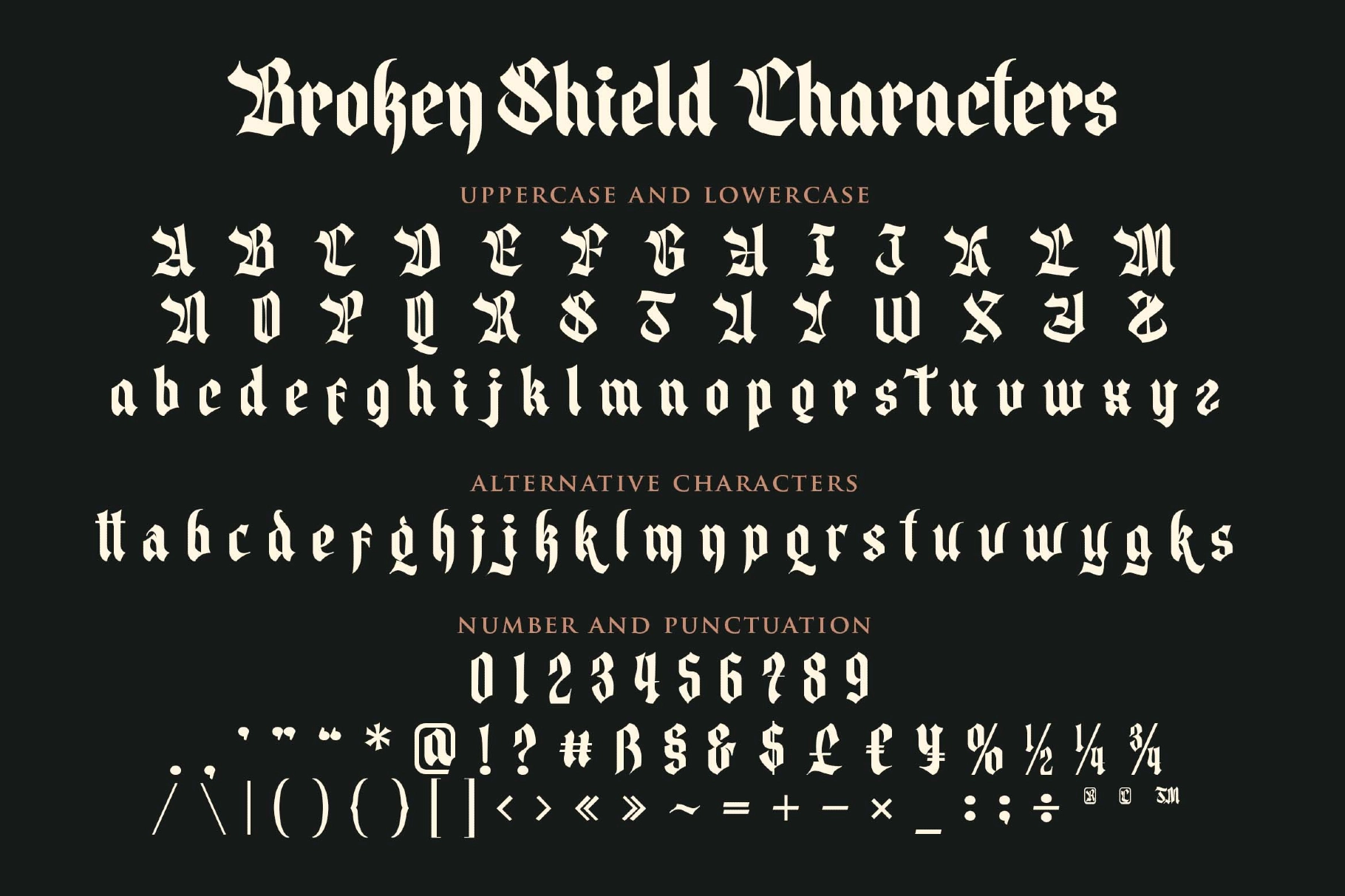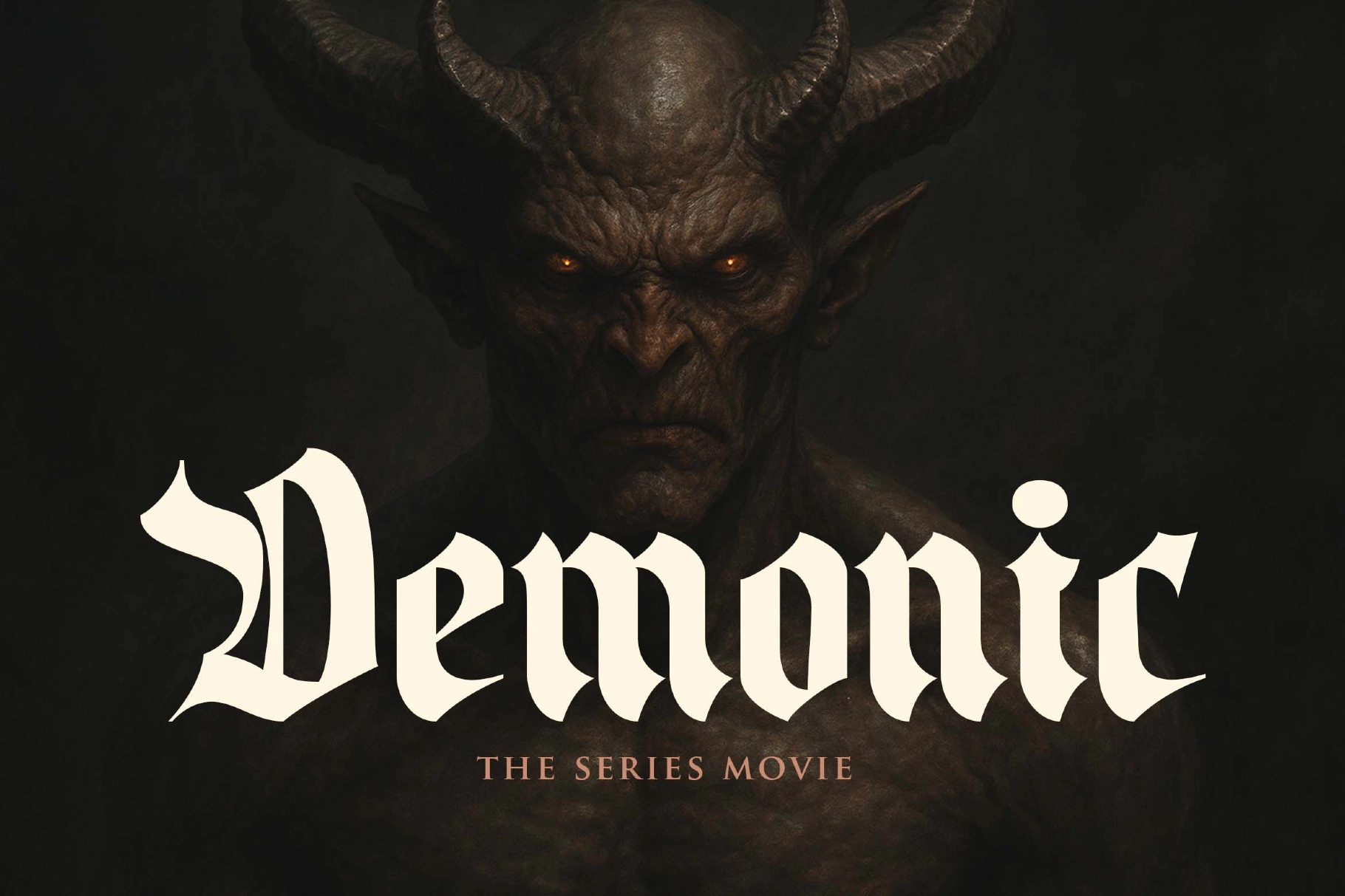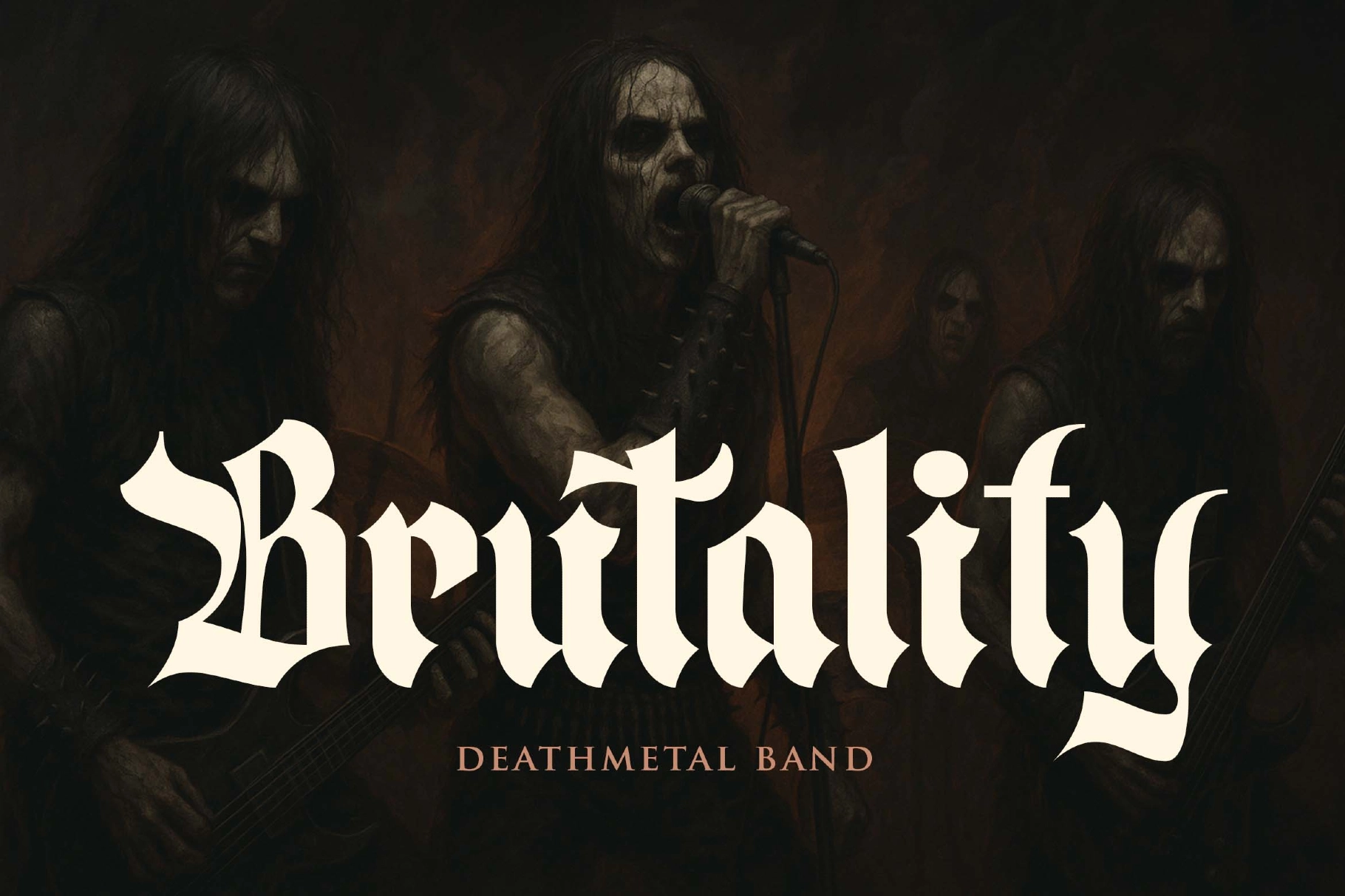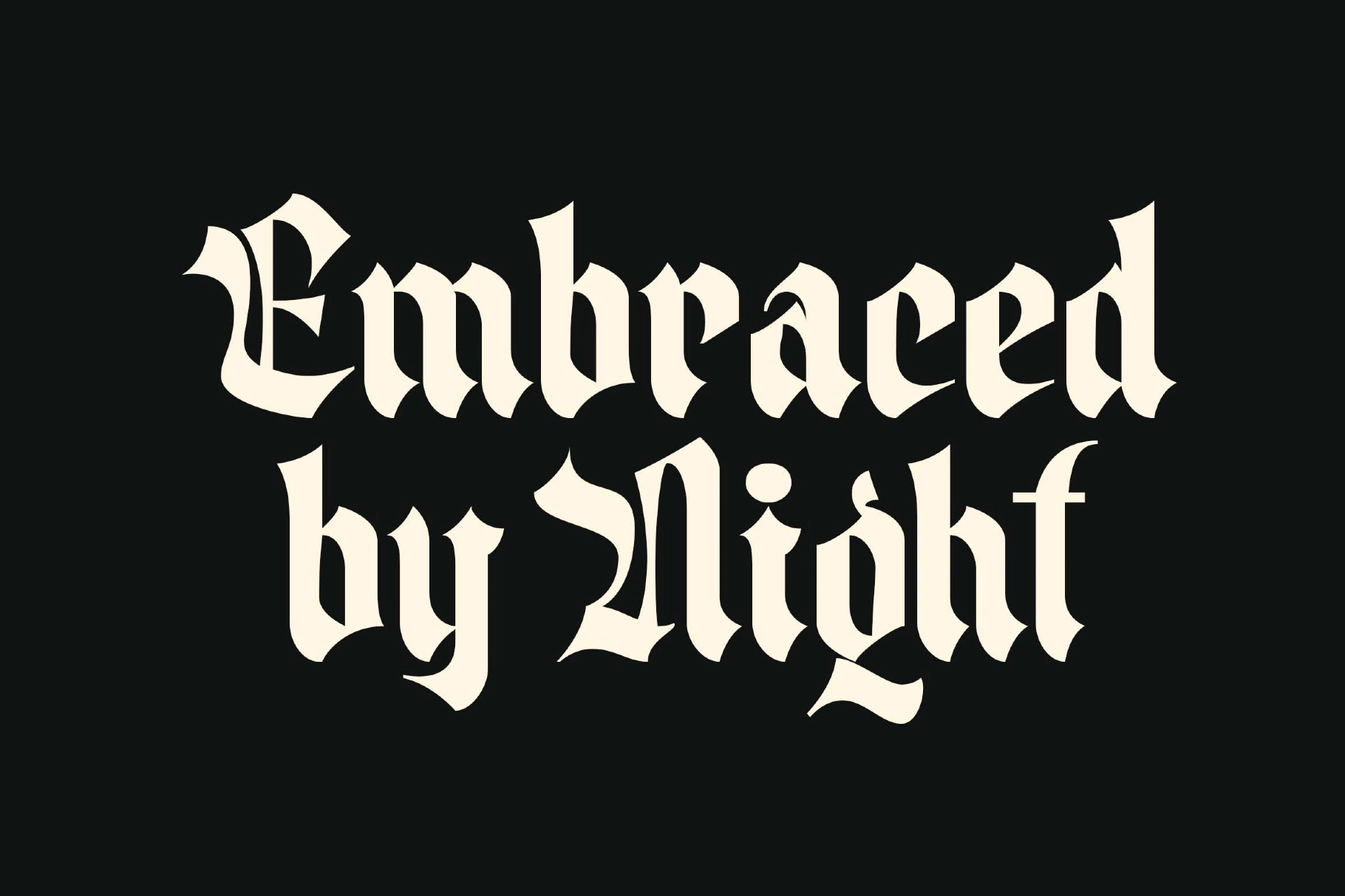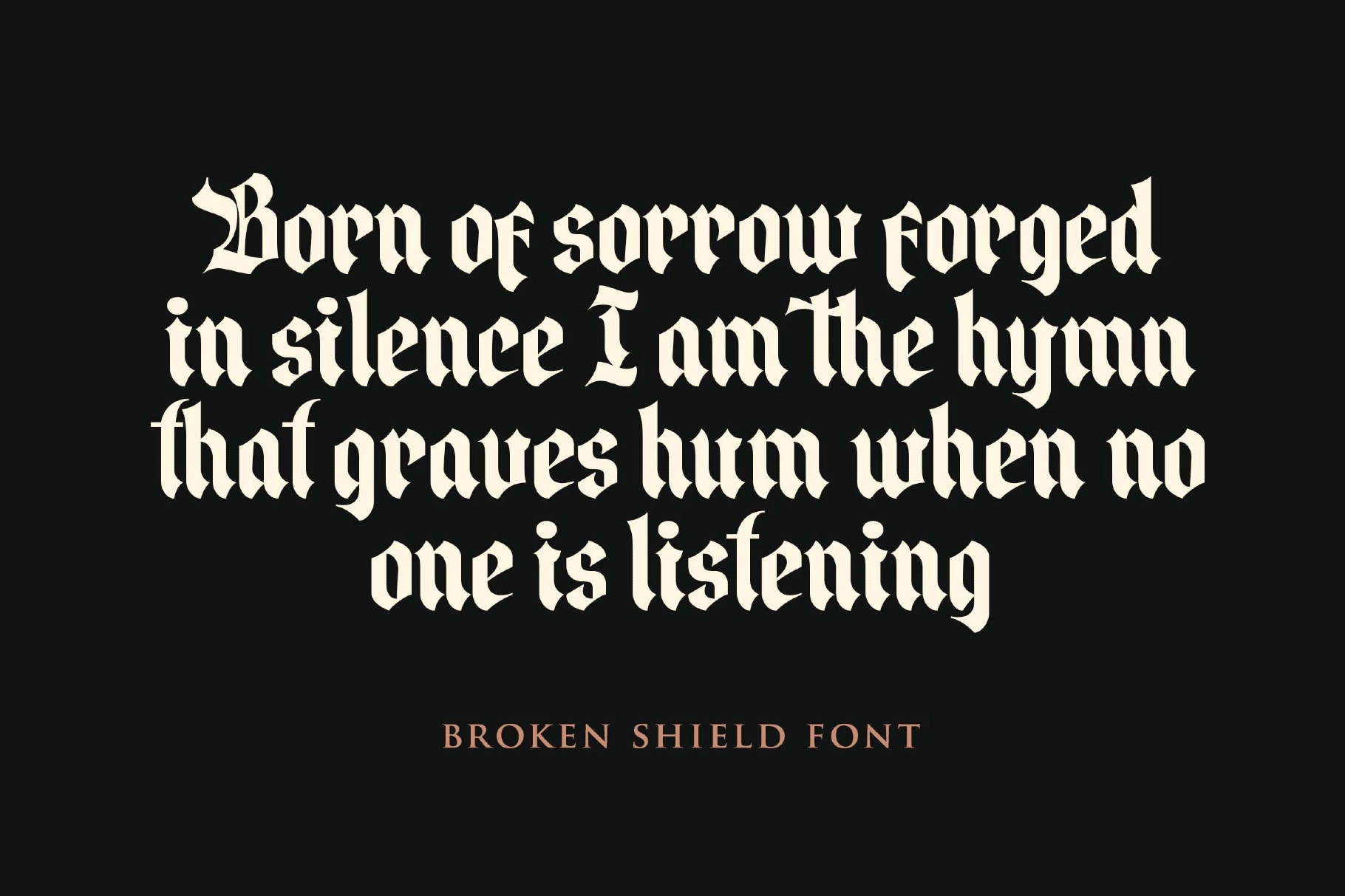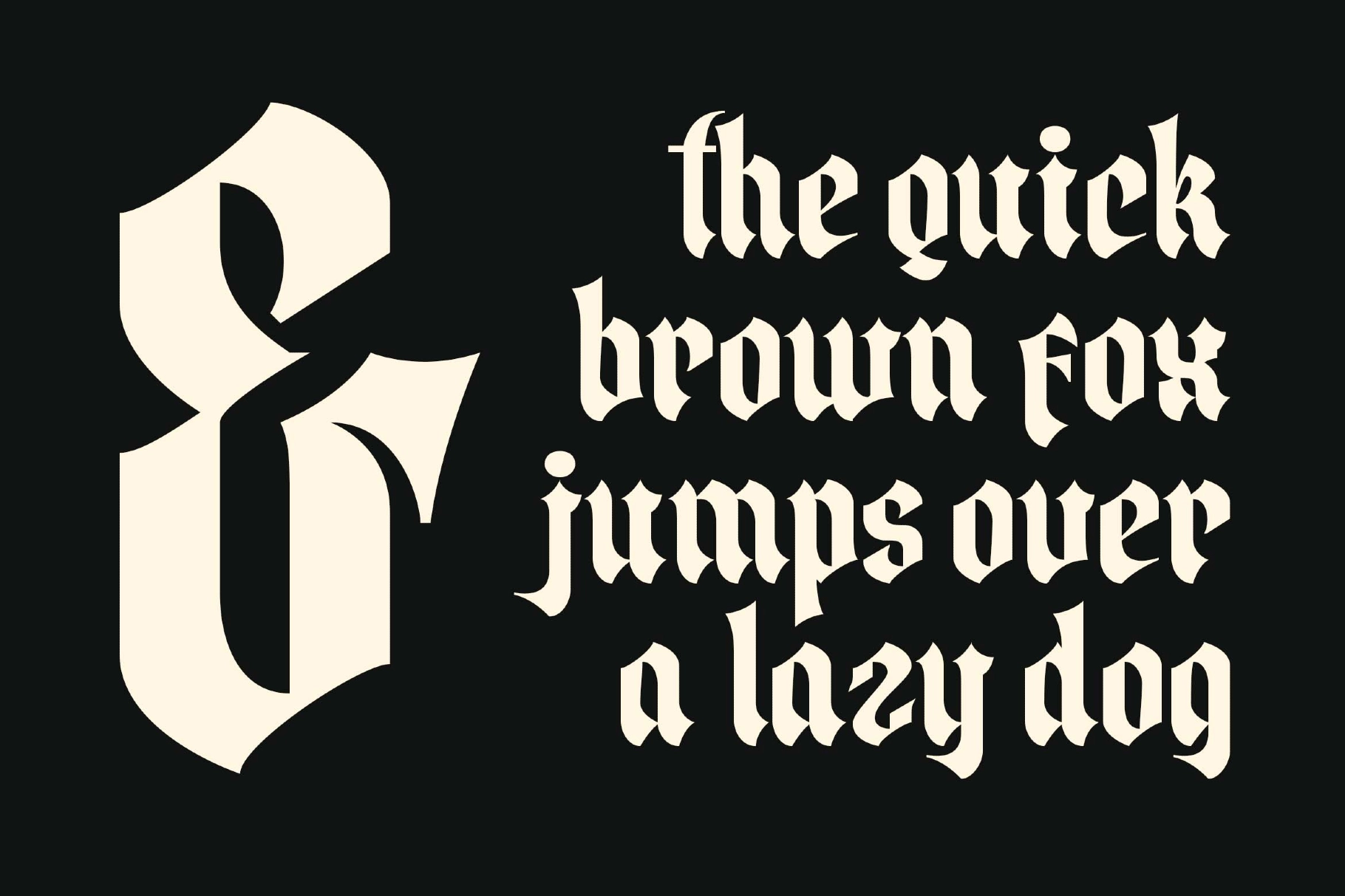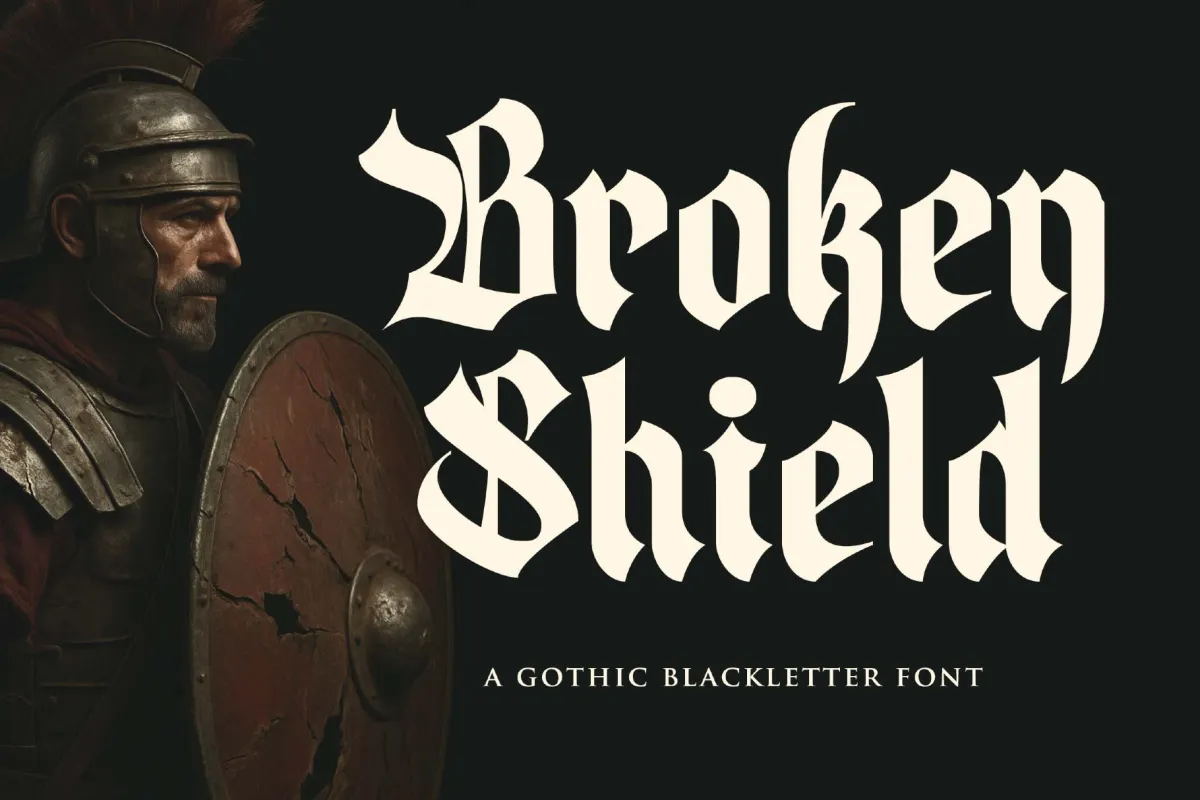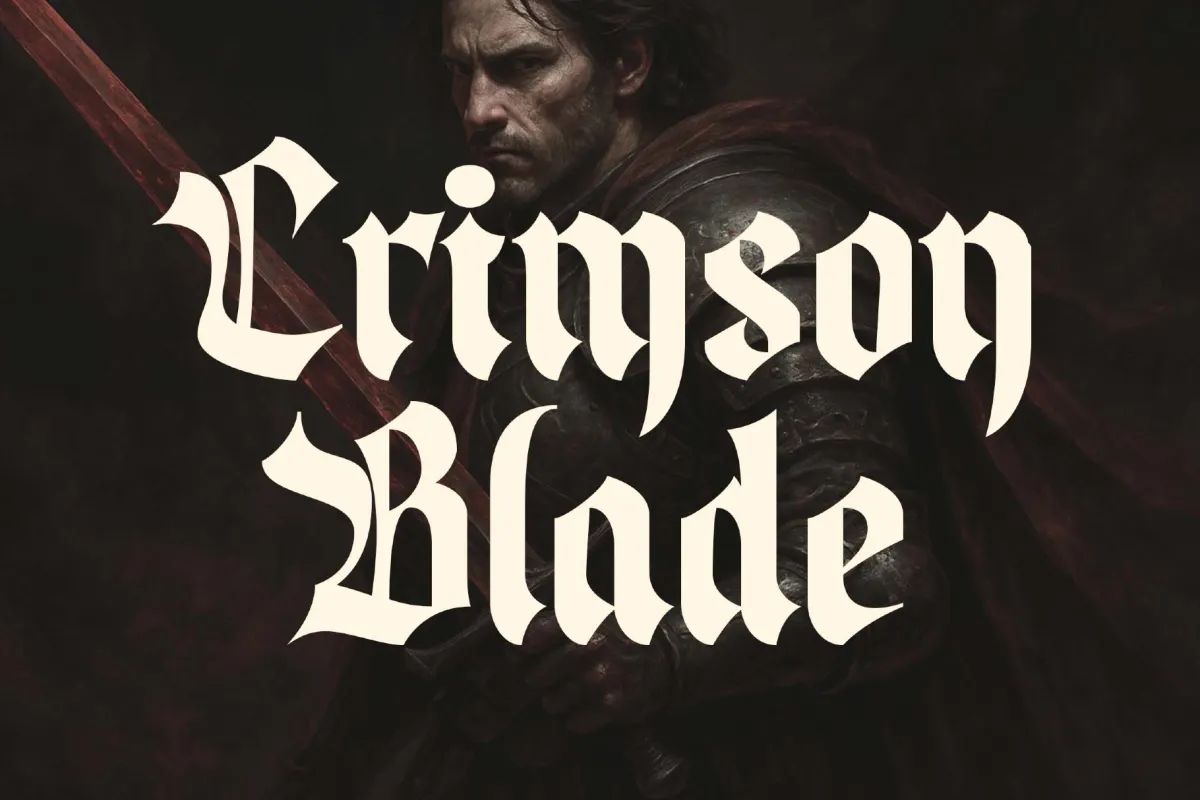
Broken Shield a Gothic Blackletter Font
Broken Shield a Gothic Blackletter Font is made for any professional project branding, such as logotype, watermarks, poster, branding, promotions, product packaging, etc. Every letter has a blackletter style design. This font comes in Otf. and Ttf. files.
Broken Shield font includes a full set of blackletter uppercase and lowercase letters, numerals and punctuation. This font has a blackletter style. See the previews above to get some inspiration on how to use them. The font support has an OpenType feature that can be opened by various graphic software programs, such as Adobe Illustrator, Adobe Photoshop, Adobe InDesign, and Corel Draw.